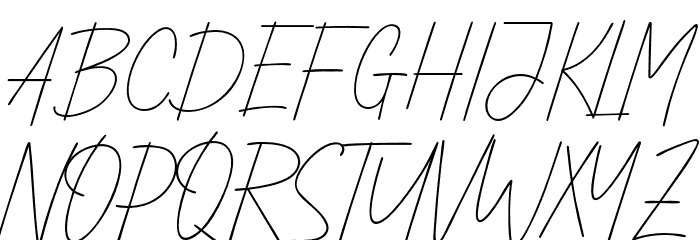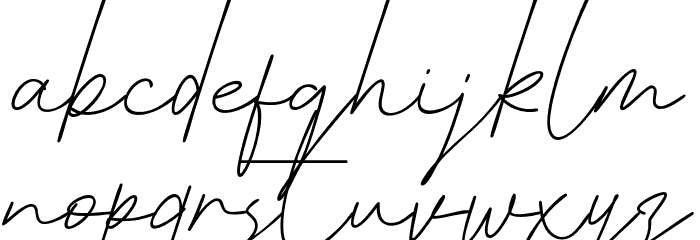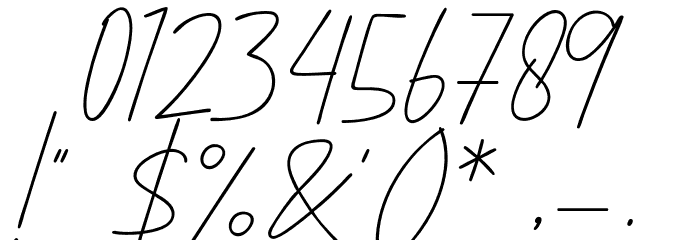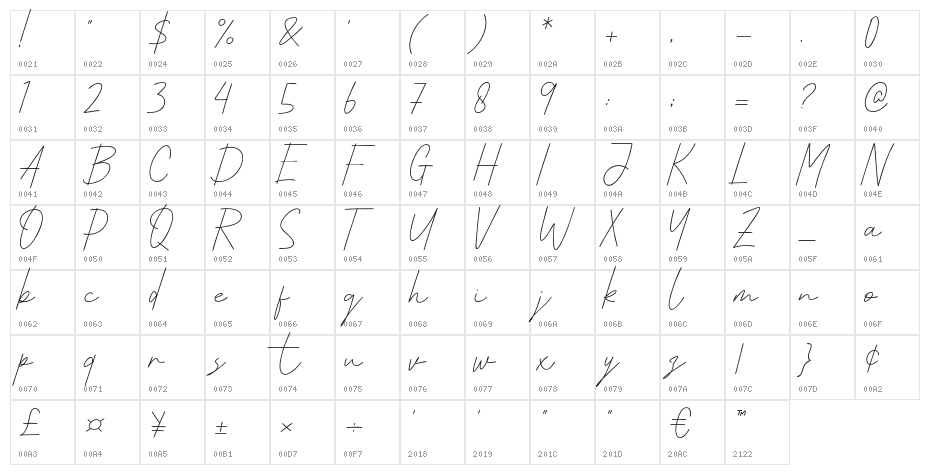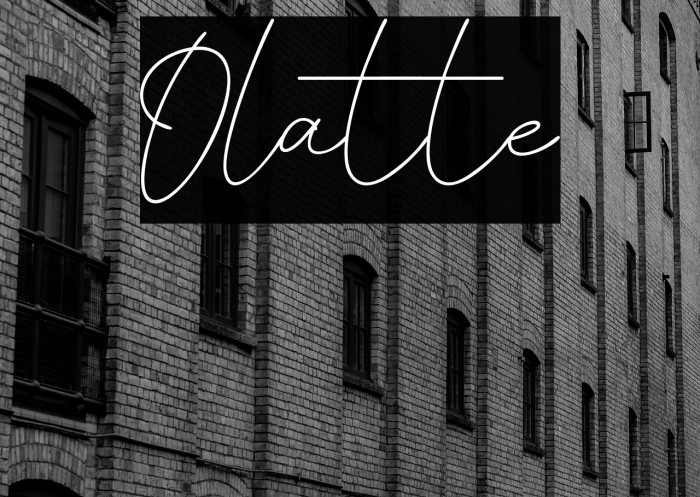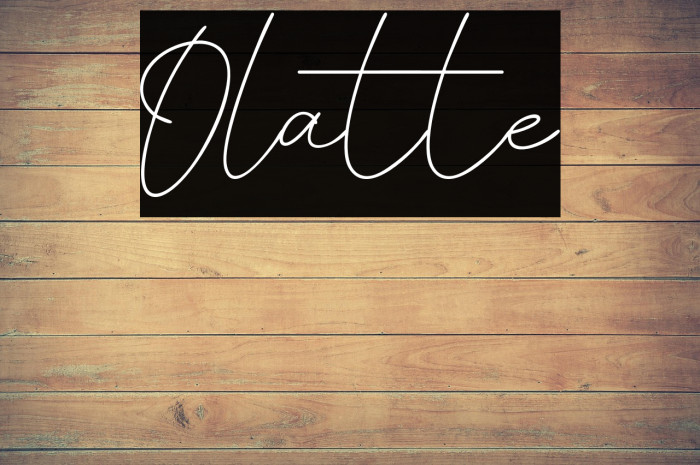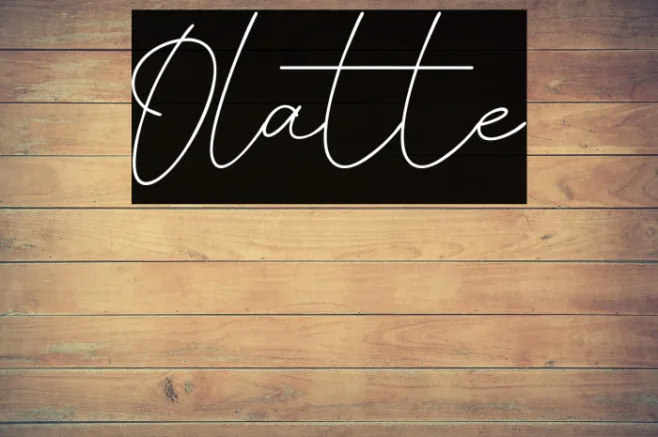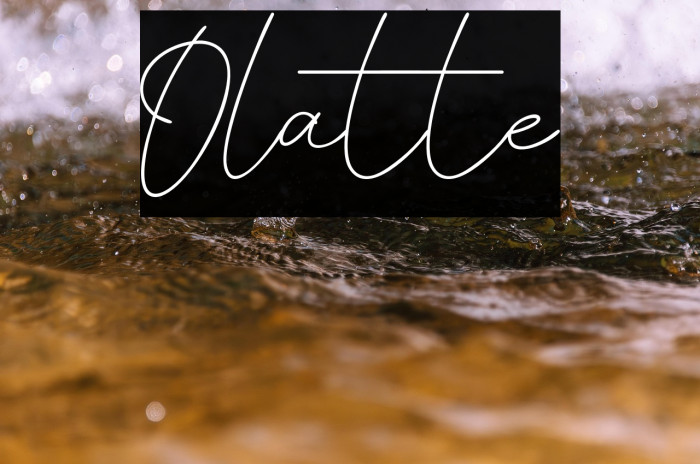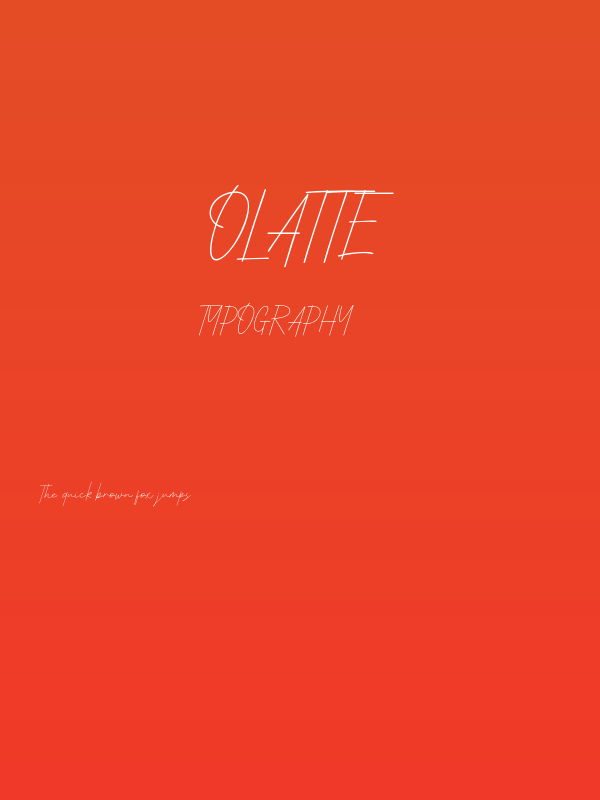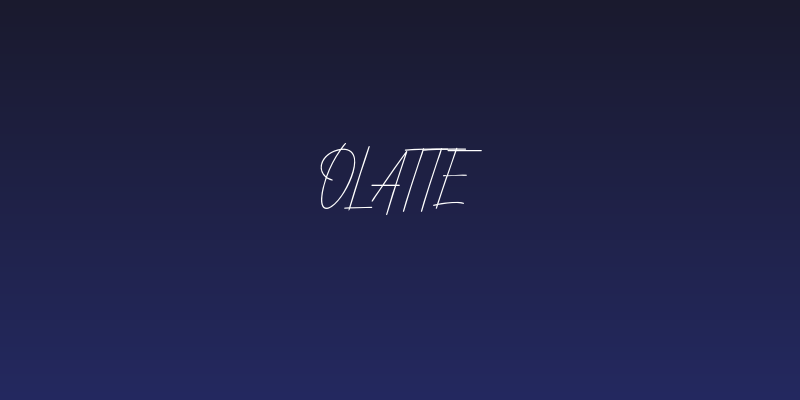
Olatte Font
This font exudes a casual and modern handwritten style, characterized by its fluid and continuous strokes. The letters are slightly slanted, giving it a dynamic and lively appearance. The uppercase and lowercase letters maintain a consistent flow, while the numerals and special characters integrate seamlessly into the overall design. The thin lines and minimalistic approach make it suitable for projects that require a personal touch without compromising readability. Its simplicity and elegance make it versatile for various design applications.
A modern, handwritten font with fluid strokes and a casual style.
- Proposed Projects: Ideal for personal branding, invitations, greeting cards, and social media graphics.
- Weight: Light
- Use Case: Logos, Headlines, Invitations